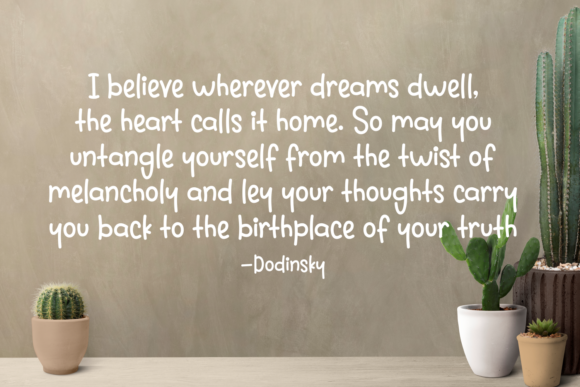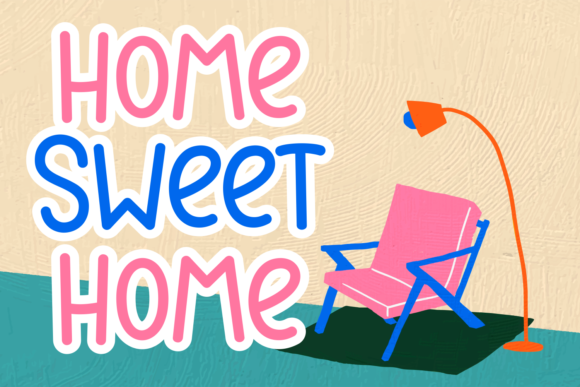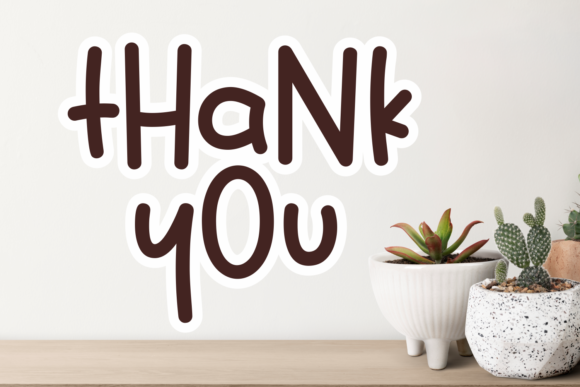
Introduction to Kelly House Font Font
Fonts play a crucial role in design, and the Kelly House Font font is a typeface that brings both character and versatility to any project. Whether you’re working on a branding project, a website, or a print design, the Kelly House Font font offers a unique style that can elevate your work.
Kelly House is a bouncy and playful handwritten font designed to add an original and authentic look to all your beautiful creations.
Kelly House is a bouncy and playful handwritten font designed to add an original and authentic look to all your beautiful creations!
Key Features of Kelly House Font Font
Why Choose Kelly House Font Font?
The Kelly House Font font is more than just a typeface – it’s a design tool that helps you communicate your message with style and clarity. Its unique character set and versatile design make it suitable for a wide range of applications, from elegant invitations to bold headlines.
With its carefully crafted letterforms and balanced proportions, the Kelly House Font font ensures readability and visual appeal across all mediums.
What makes Kelly House Font font special?
The Kelly House Font font stands out with its unique design, exceptional readability, and versatility across various design applications.